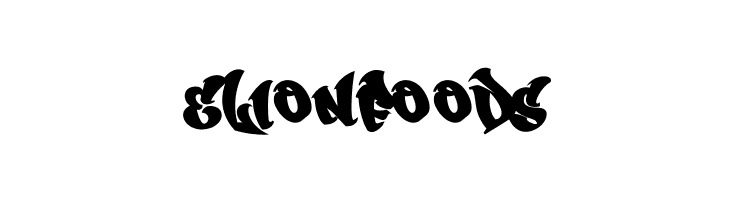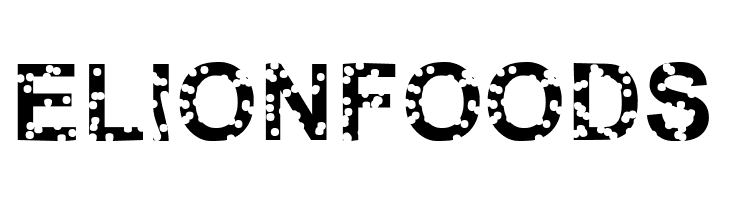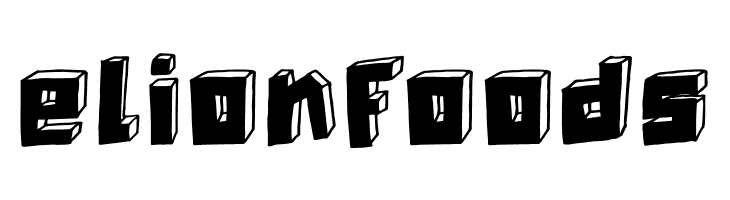
A bold, textured font with a brick wall pattern, ideal for urban-themed designs.
A bold, architectural font with urban, building-like elements and a strong visual impact.
A bold, brush-style font with dynamic, expressive strokes.
( Adam Wunn )
A bold, distressed font with an urban, graffiti-like texture.
A bold, three-dimensional graffiti-style font with an edgy, urban feel.
A bold, distressed font with a splatter effect, ideal for urban and edgy designs.
( Fonts by imagex )
A bold, urban-style font with a dripping cityscape effect.
A rugged, distressed font with a bold, urban aesthetic.